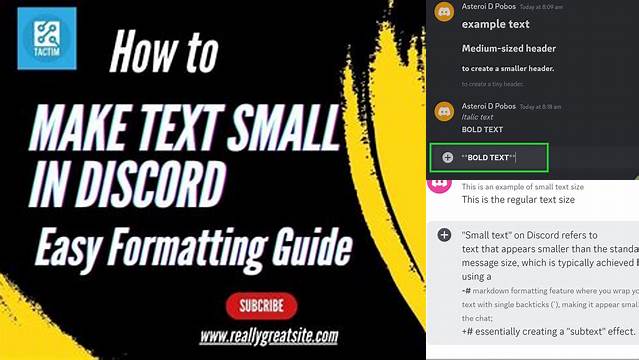
Discord Small Font Tricks: Easy Guide
Hey guys! Ever wanted to make your Discord messages stand out with small fonts? It's a cool trick to emphasize points, add a stylistic flair, or just be a bit different. Discord offers several ways to tweak your text formatting, and shrinking your font is one of them. This guide will walk you through the various methods to achieve small fonts in Discord, making your chats more engaging and expressive. Let’s dive in and explore how you can master the art of tiny text! Whether you're looking to create a minimalist aesthetic or just want to try something new, using small fonts can add a unique touch to your Discord conversations. It’s a simple yet effective way to highlight specific words or phrases, making them stand out from the rest of your message. So, get ready to unleash your creativity and learn how to make your text shrink in Discord!
Understanding Discord Text Formatting
Before we jump into the specifics of making fonts smaller, it’s crucial to understand the basics of Discord’s text formatting. Discord uses Markdown, a lightweight markup language that allows you to format your text in various ways. Knowing these formatting options opens up a world of possibilities for your messages, including changing font sizes. You can italicize, bold, underline, and even create code blocks using simple symbols. Mastering these basics will not only help you create small fonts but also give you greater control over your message presentation. So, let’s take a quick look at some of the fundamental Markdown elements that Discord supports. By understanding these, you'll be better equipped to experiment with different formatting styles and make your messages truly unique. The power of Markdown lies in its simplicity and versatility, allowing you to transform plain text into visually appealing messages with ease. It's like having a mini design studio right at your fingertips!
Method 1: Using Superscript for Smaller Text
One of the easiest ways to achieve small fonts in Discord is by using the superscript formatting. Superscript raises text above the normal line, effectively making it appear smaller. This method is perfect for adding subtle emphasis or creating a unique visual effect. To use superscript, simply enclose the text you want to shrink within carets (^). For example, typing "Hellothere" will render as “Helloᵗʰᵉʳᵉ”. This technique is especially useful for footnotes or adding a touch of whimsy to your messages. It's a simple trick that can make a big difference in how your text is perceived. Plus, it's super easy to remember and use on the fly. So next time you want to add a bit of flair to your message, give superscript a try! It’s a fantastic way to play with text size and create a visually interesting conversation.
Detailed Steps for Applying Superscript
Let's break down the steps for applying superscript in Discord, making it super clear and easy to follow. First, identify the word or phrase you want to make smaller. Then, simply place a caret (^) symbol before each character you want to superscript. For instance, if you want to superscript the word “small,” you would type “small”. Remember, each character needs its own caret for the superscript to apply correctly. This method is quite versatile and can be used within larger sentences or paragraphs. Experiment with different placements and combinations to achieve the desired effect. Keep in mind that while this method effectively makes text appear smaller, it's technically changing its position rather than its actual size. But hey, the visual effect is what matters, right? So go ahead, give it a try, and watch your text shrink before your eyes!
Examples of Superscript in Action
To give you a better idea of how superscript works, let's look at some practical examples. Imagine you want to add a footnote to your message. You could type something like, “This is important1”, which would render as “This is important¹”. Or, if you want to emphasize a particular word in a sentence, try using superscript on each letter. For example, “This is small text” becomes “This is ˢᵐᵃˡˡ text”. These examples showcase the versatility of superscript in Discord. You can use it for various purposes, from adding subtle nuances to creating playful text effects. It’s a fantastic tool to have in your Discord formatting arsenal. So, don't be afraid to experiment and see how you can incorporate superscript into your own messages. You might be surprised at the creative ways you can use it to enhance your conversations and make your text stand out.
Limitations of the Superscript Method
While superscript is a handy trick for creating the illusion of small fonts, it does have its limitations. One of the main drawbacks is that it can be a bit tedious to apply to longer words or phrases, as you need to add a caret before each character. Additionally, the superscript method doesn't actually change the font size; it just raises the text, which might not always be the desired effect. The perceived size reduction is more of a visual trick than a true font size adjustment. Furthermore, the readability of text formatted with extensive superscript can sometimes be compromised, especially on smaller screens. So, while it's a great tool for occasional emphasis or stylistic flair, it might not be the best choice for large blocks of text. Keep these limitations in mind when deciding whether to use superscript in your Discord messages. It's all about finding the right balance between creativity and clarity.
Method 2: Using Unicode Characters for Subscript
Another clever way to create small fonts in Discord is by using Unicode subscript characters. Subscript characters are similar to superscript but appear below the baseline of the text, creating a similar effect of reduced size. This method involves finding and inserting specific Unicode characters that represent subscript letters and numbers. While it might sound a bit technical, it's actually quite straightforward once you get the hang of it. There are numerous online resources and character maps that provide these Unicode characters, making them easily accessible. Using subscript characters can add a unique touch to your messages, especially when you want to emphasize something subtly. It's a bit more involved than the superscript method, but the results can be quite striking. So, if you're looking for a different way to shrink your text, Unicode subscript characters are definitely worth exploring.
Finding and Inserting Unicode Subscript Characters
Okay, so how do you actually find and insert these elusive Unicode subscript characters? The easiest way is to use an online Unicode character map or search for a “Unicode subscript character list” on your favorite search engine. You'll find websites that display all the available subscript characters, which you can then copy and paste into your Discord message. Another option is to use the character map application on your computer (if you're on Windows, search for “Character Map” in the Start menu). Once you've found the characters you need, simply copy them and paste them into your Discord text box. It's a bit of a copy-paste game, but the result is worth the effort. Remember, not all characters have subscript equivalents, so you might need to get creative with your wording. But that's part of the fun, right? Experiment and see how you can incorporate these unique characters into your messages to create that small font effect.
Examples of Subscript Characters in Discord
Let's see some examples of how subscript characters can be used in Discord. Imagine you want to write a chemical formula, like H₂O. You can use the subscript 2 character to represent the “2” in the formula: H₂O. Or, if you want to add a subtle emphasis to a word, you could use subscript letters. For example, “This is sₘₐₗₗ text” could be written to mimic the effect of small font. These examples highlight the versatility of Unicode subscript characters. They can be used for specific purposes, like scientific notation, or for more creative text formatting. The key is to experiment and find ways to incorporate them into your messages that suit your style. Subscript characters offer a unique way to play with text size and add a distinct visual element to your Discord conversations. So, go ahead and give them a try!
Challenges of Using Unicode for Small Fonts
While using Unicode characters for small fonts is a cool trick, it comes with its own set of challenges. One of the main hurdles is the limited availability of subscript and superscript characters. Not every letter or number has a corresponding Unicode subscript or superscript, which can restrict your ability to format text exactly as you envision. Another challenge is the potential for compatibility issues. While most modern platforms and applications support Unicode, there's always a chance that some users might not see the characters correctly, leading to your message being displayed differently than intended. Furthermore, the process of finding and inserting these characters can be a bit cumbersome, especially if you need to use them frequently. It involves a lot of copying and pasting, which can slow down your typing speed. Despite these challenges, Unicode characters offer a unique way to play with text formatting in Discord. Just be mindful of the limitations and potential compatibility issues.
The Psychology of Font Size in Online Communication
The psychology of font size in online communication plays a significant role in how messages are perceived. Larger fonts often convey emphasis, urgency, or even shouting, while small fonts can imply subtlety, understatement, or less importance. Font size influences the emotional tone of a message, shaping the recipient's interpretation. Using excessively large fonts can be perceived as aggressive or attention-seeking, while overly small fonts might suggest timidity or a lack of confidence. Strategic variation in font size creates visual hierarchy, guiding the reader's eye and highlighting key information. Understanding these psychological effects allows users to communicate more effectively, conveying not only content but also desired emotions and emphasis. Conscious font size choices contribute to clearer, more impactful online interactions, fostering better communication and understanding. By considering the psychological impact of font size, users can fine-tune their messages for optimal reception and engagement.